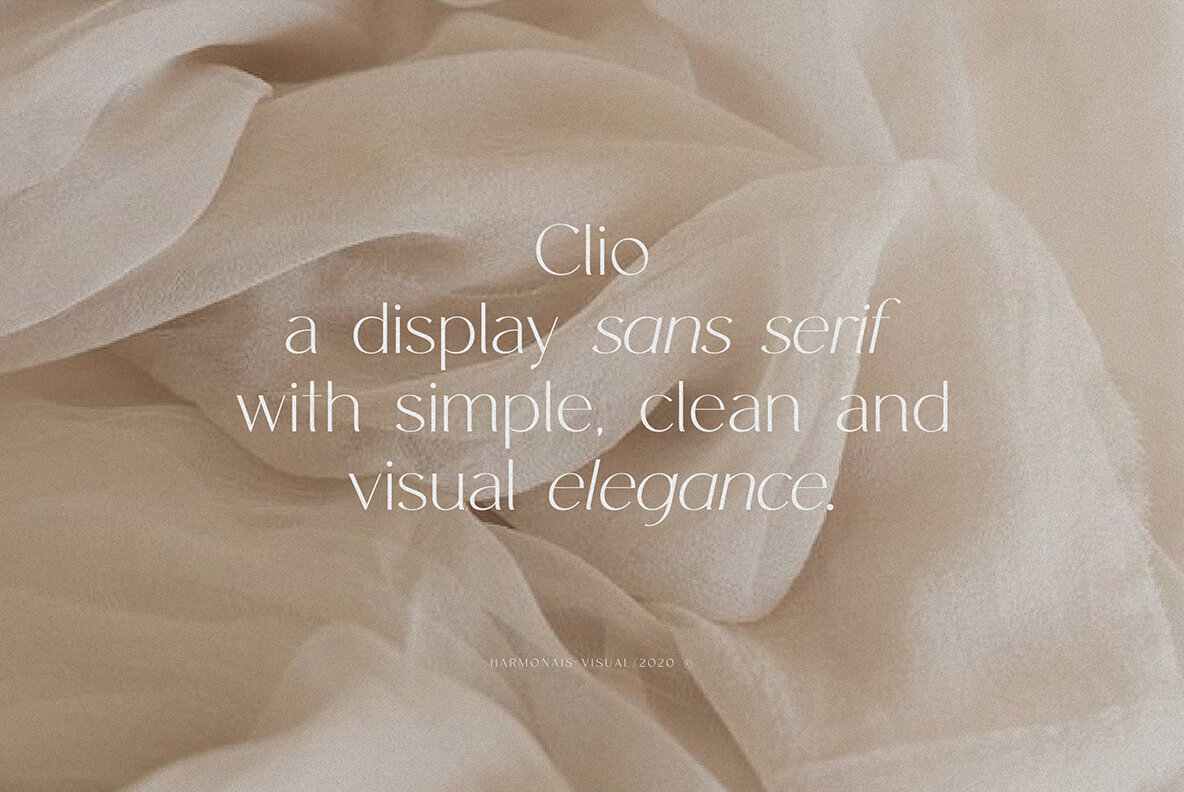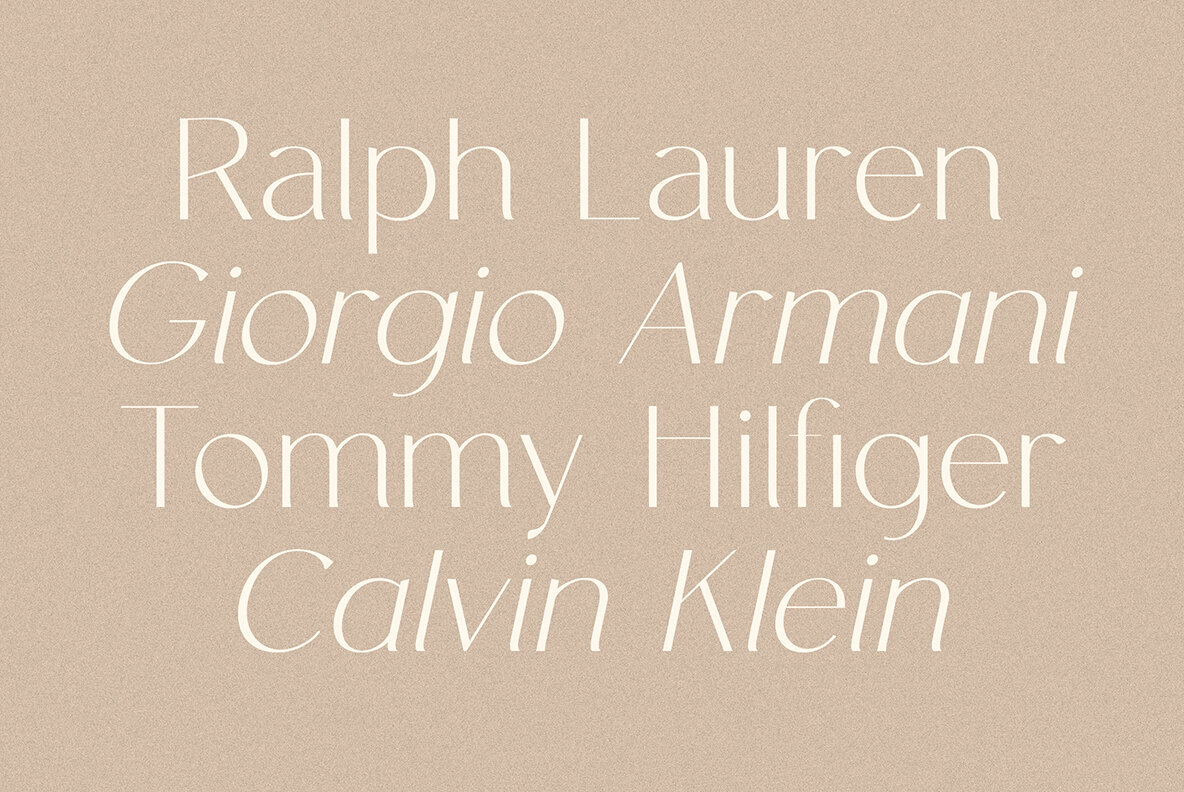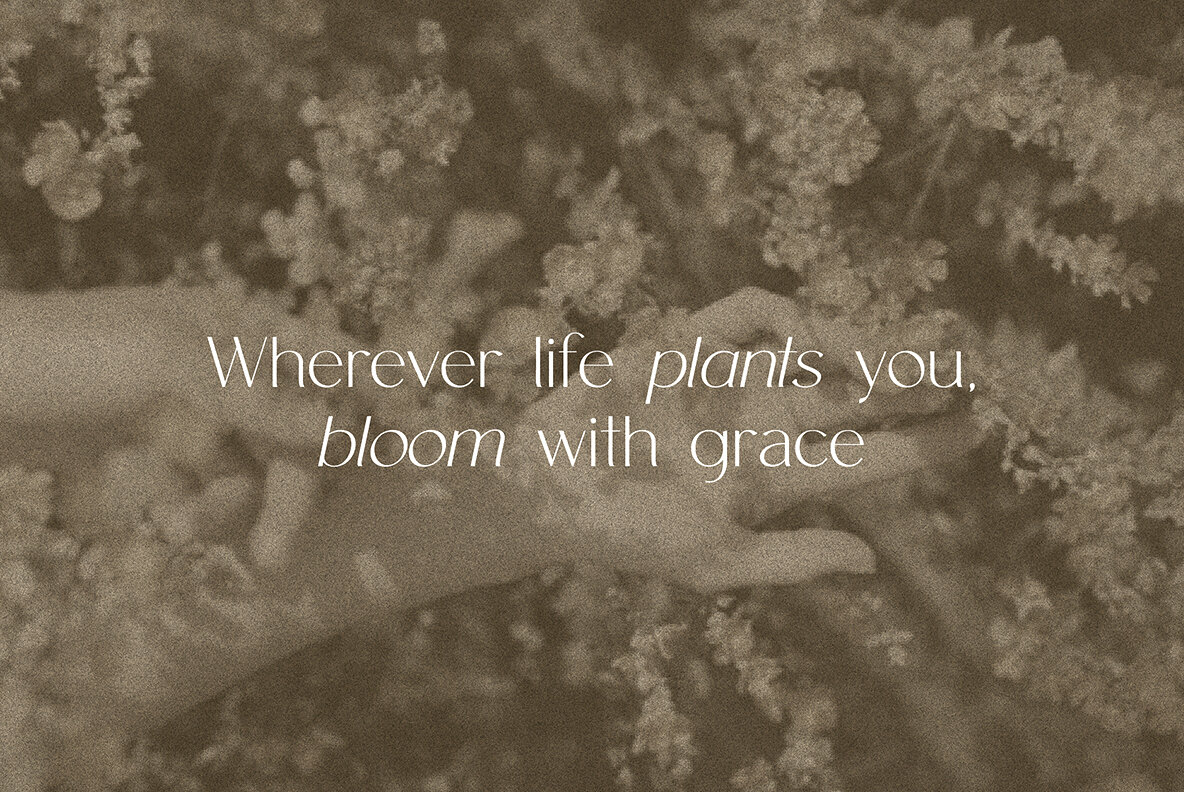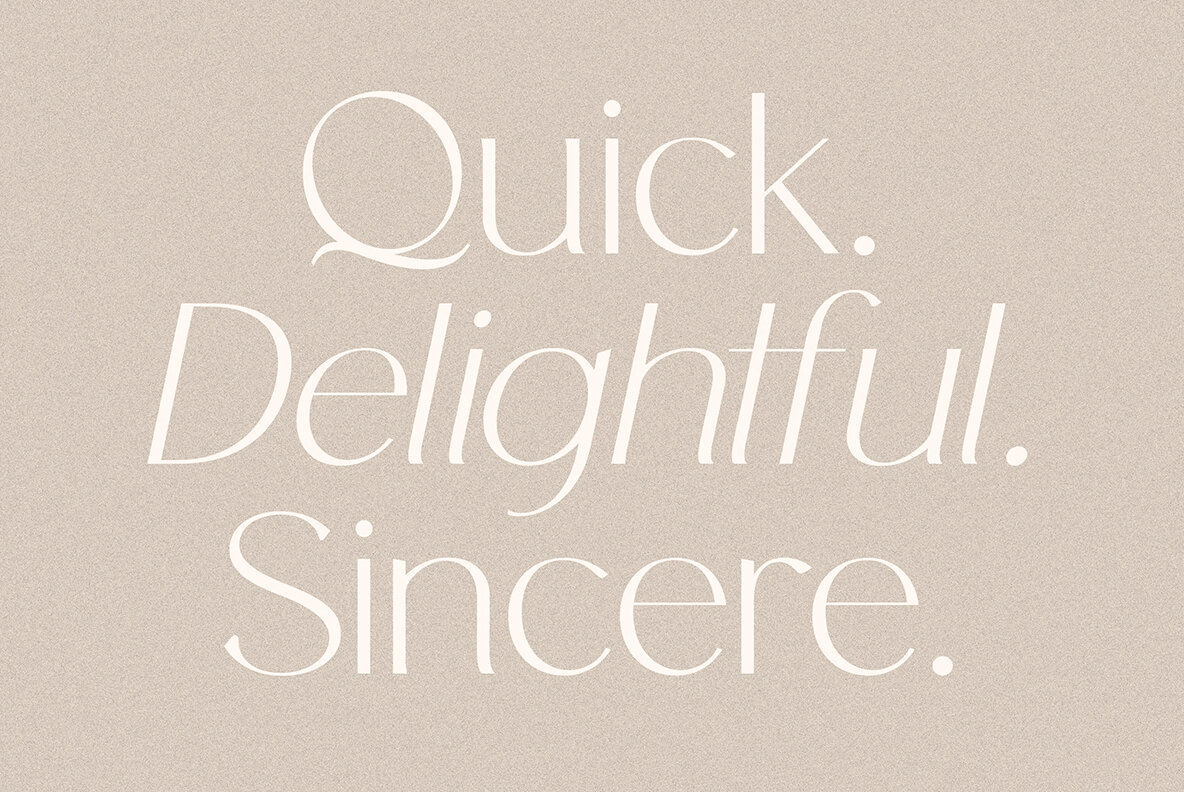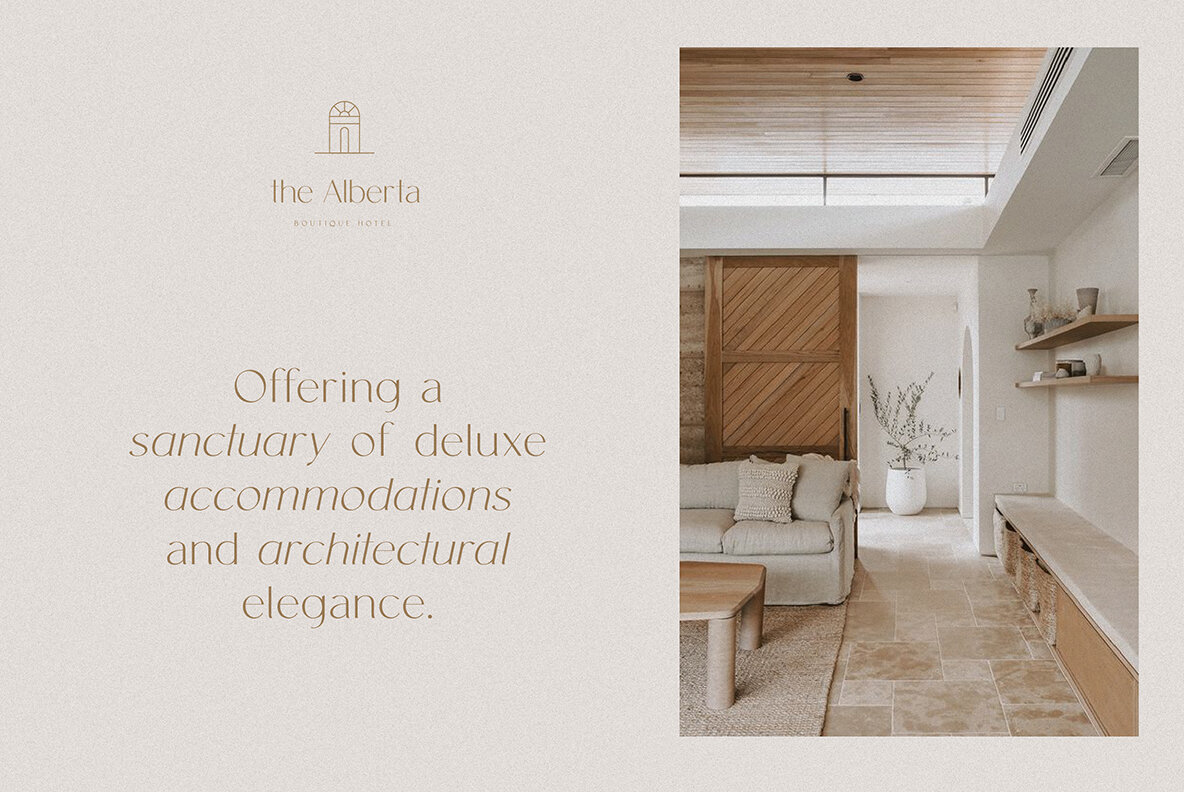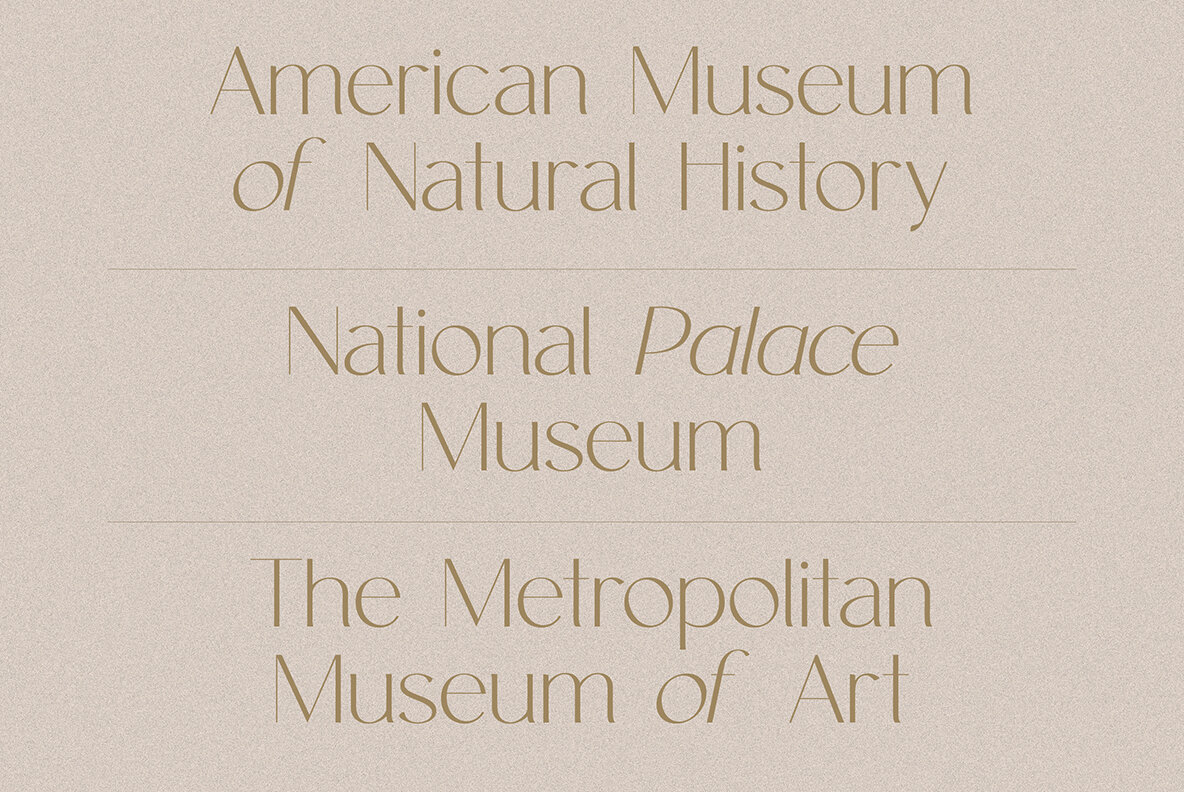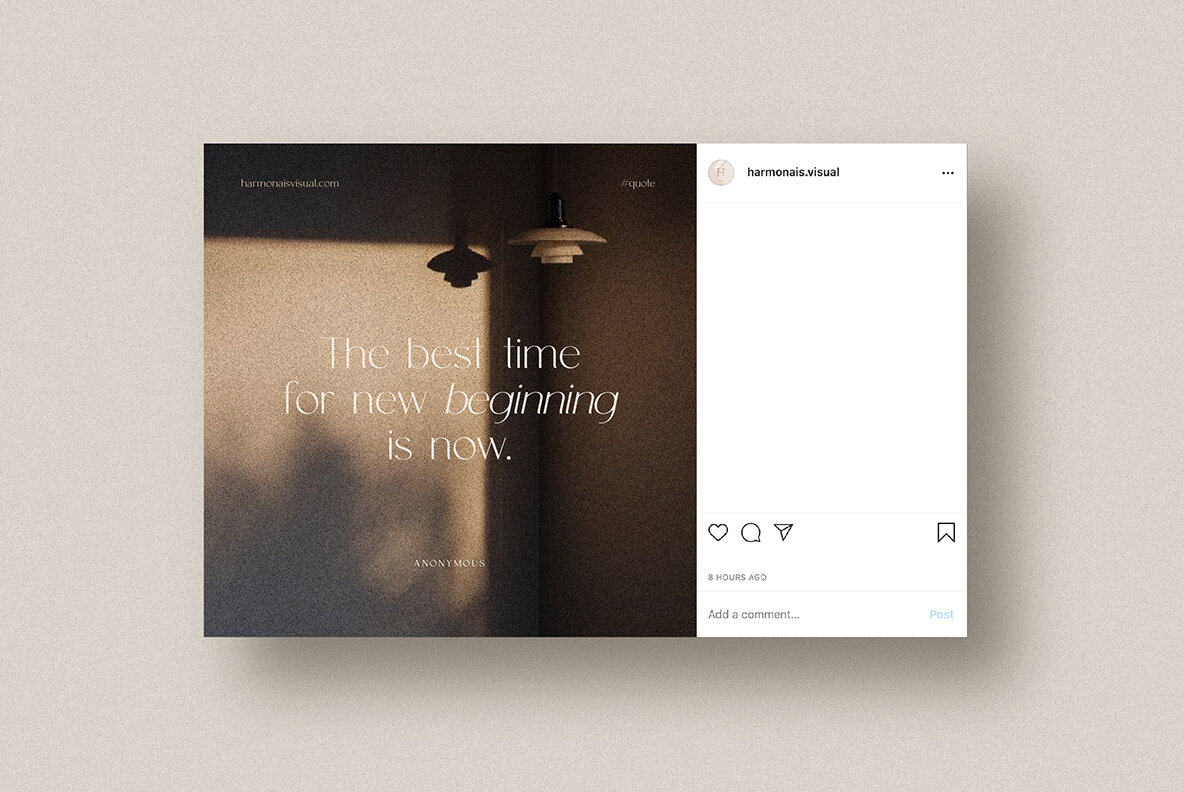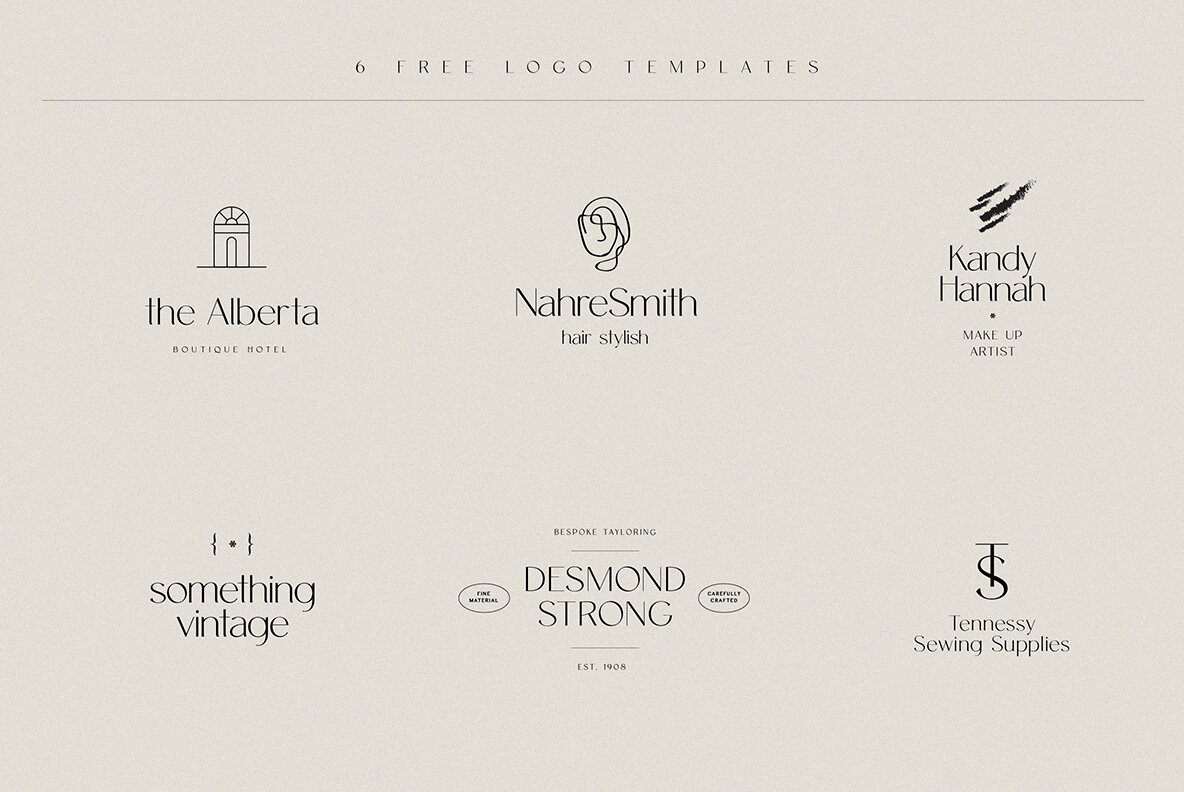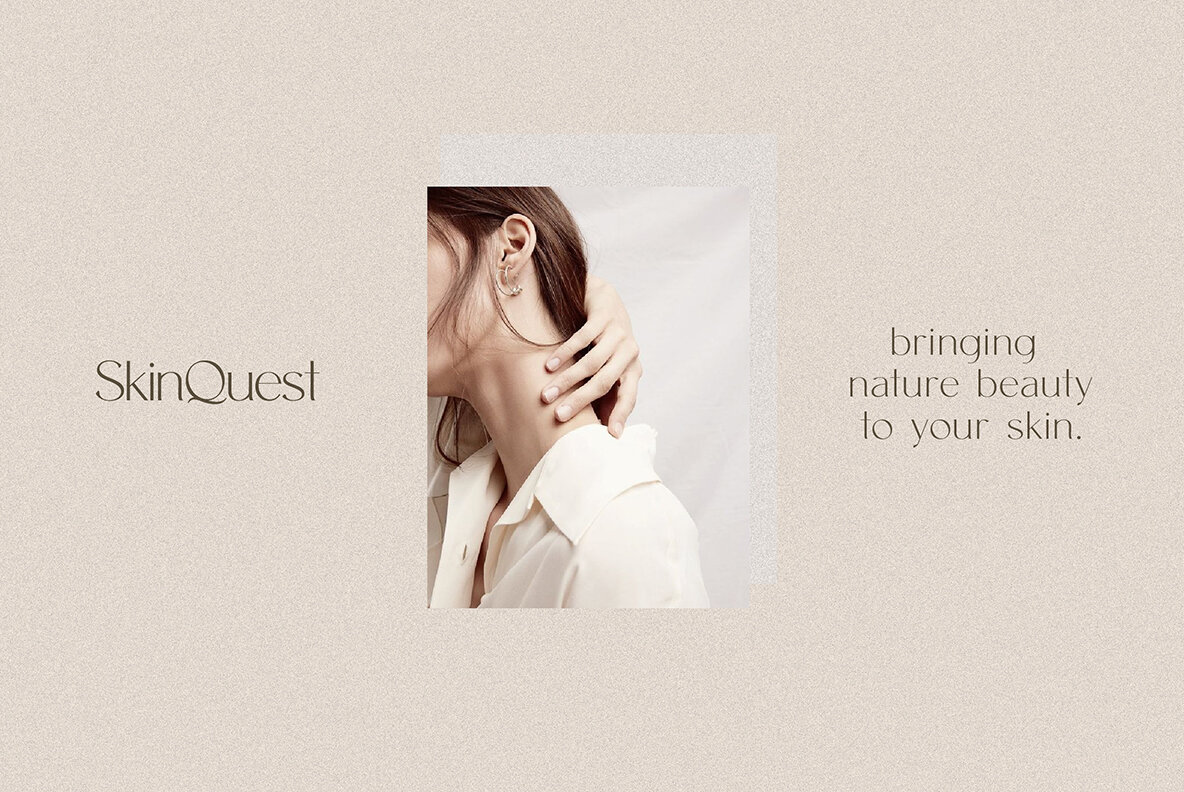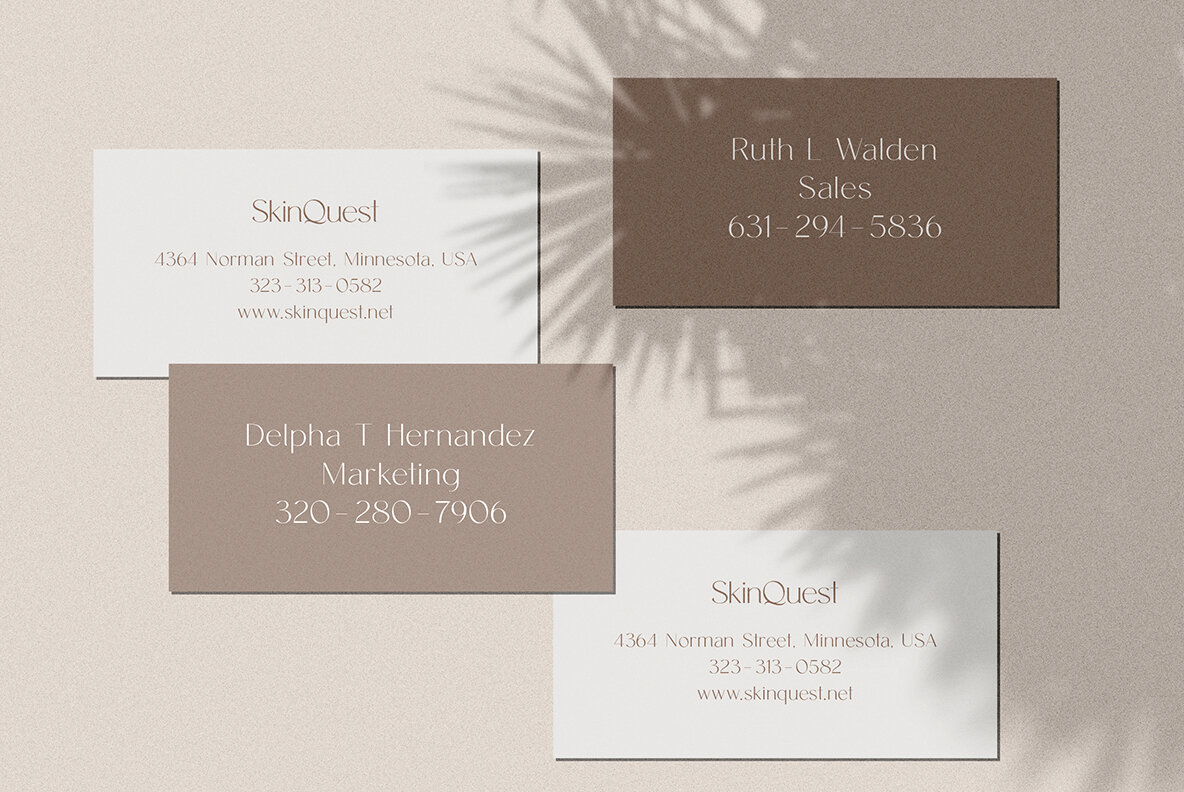
HV Clio: A Display Sans Serif of Visual Elegance
HV Clio by Harmonais Visual is a display sans serif font that embodies simplicity and elegance. Crafted for projects that demand a refined aesthetic, HV Clio is ideal for applications such as logos, titles, and magazine layouts. Its clean lines and sophisticated design ensure that it complements a variety of lifestyle designs.
• Standard Ligatures – Adds a subtle uniqueness to text.
• Versatile Usage – Perfect for logos, titles, and editorial design.
• Elegance in Simplicity – Clean lines create a sophisticated look.